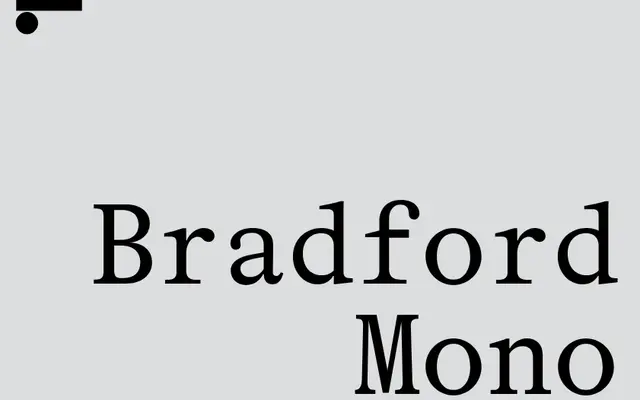
LL Bradford Mono
Lineto · Laurenz Brunner · 2018
LL Bradford Mono specimen from Lineto
A single-cut monospaced companion to LL Bradford, carrying the physical character of hot metal type into a fixed-pitch serif format.
Drawn by Laurenz Brunner and released by Lineto in 2018, LL Bradford Mono is the fixed-pitch counterpart to the fourteen-cut LL Bradford family, itself developed over a decade with Römische Antiqua (1884) as its primary historical reference. That lineage runs through Plantin (1913) and Times New Roman (1931), and Brunner's aim throughout was to preserve the material presence of hot metal setting in a digital form. The mono cut offers a single Regular weight suited to text-heavy contexts where typewriter or terminal aesthetics are wanted alongside a grounded serif character.
A monospaced companion to a serif text family rooted in Römische Antiqua and the transitional serif tradition; it carries the typographic character of hot metal type into a fixed-pitch format.